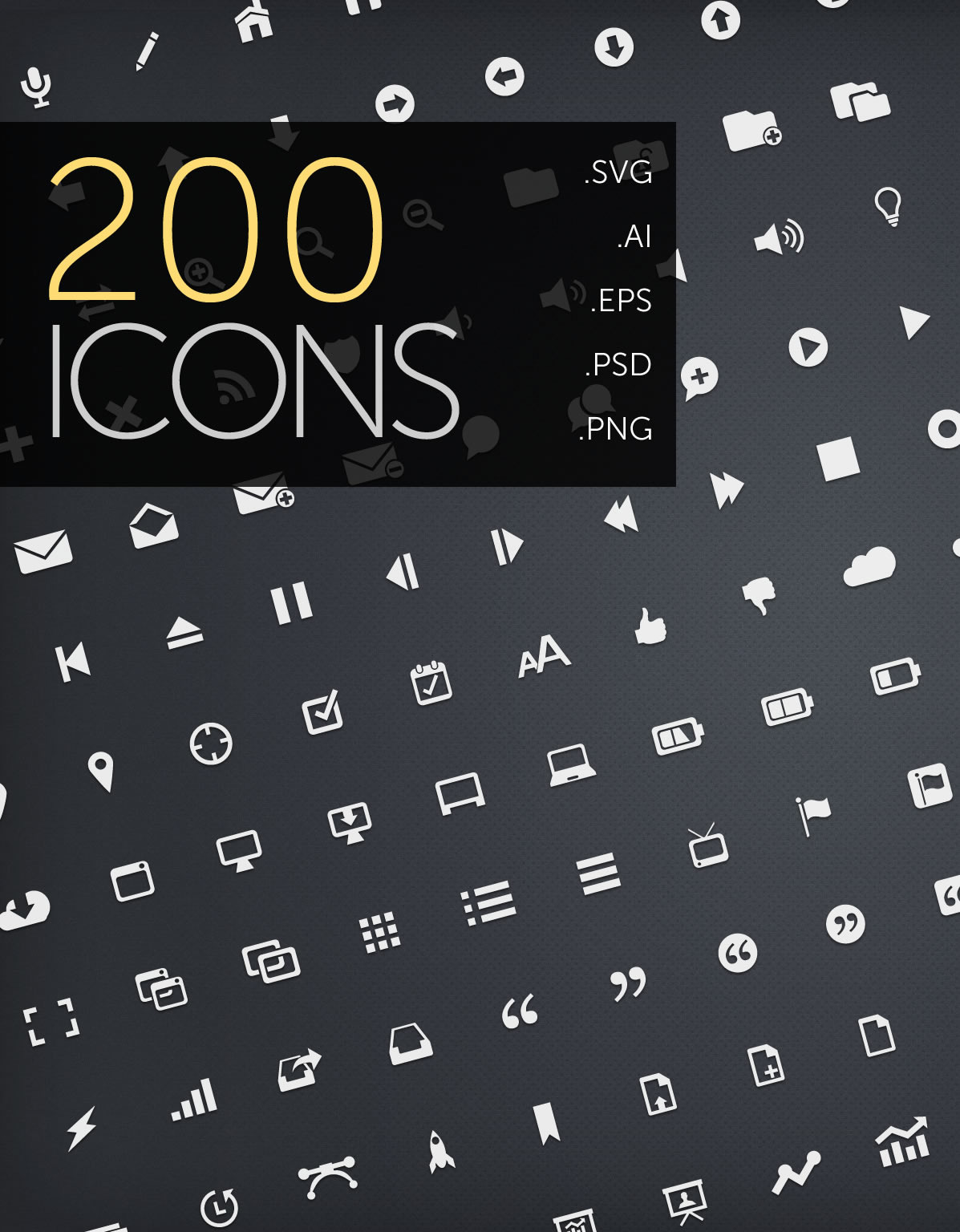
Hipcons 200 icon pack with Web Font
Hipcons are a fantastic collection of 200 royalty free infinitely scalable handcrafted icons that also come as a desktop font and @font-face files. The icons are optimised in 8 different sizes, and a web font for quick deployment in your projects.